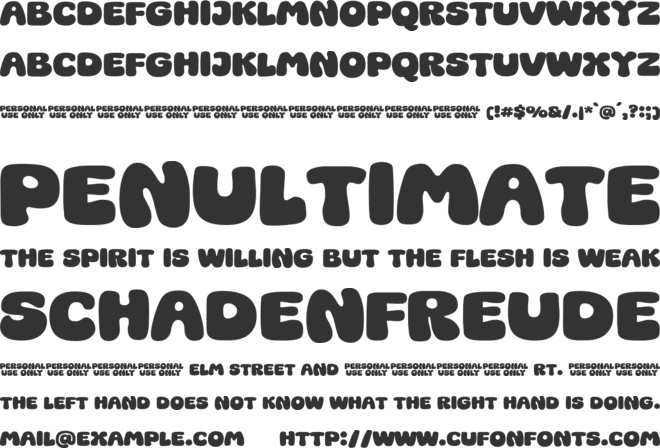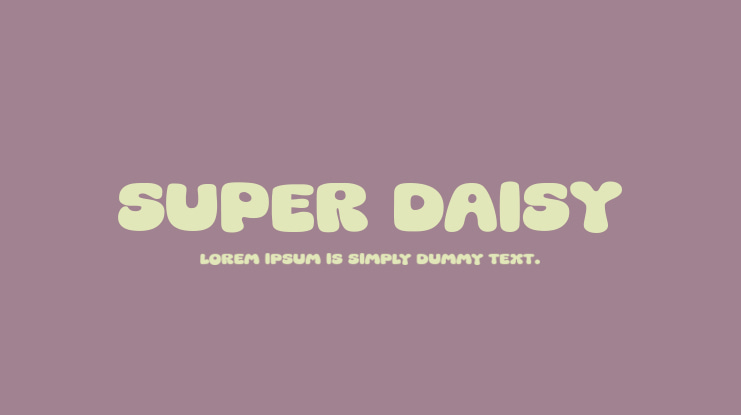
Super Daisy Font
Super Daisy is a round, bold, heavy, and chubby font that is perfect for making a statement. With its thick, curved letters, Super Daisy is both eye-catching and playful. It is a great choice for headlines, logos, and other attention-grabbing designs.